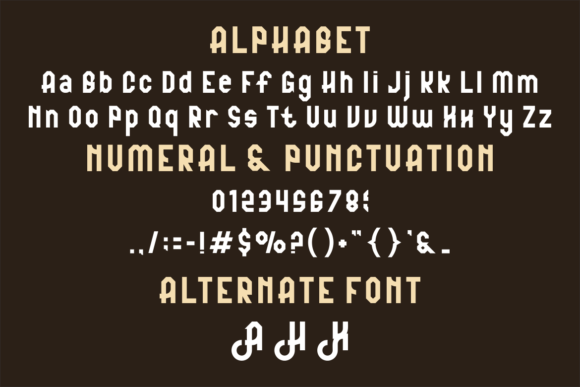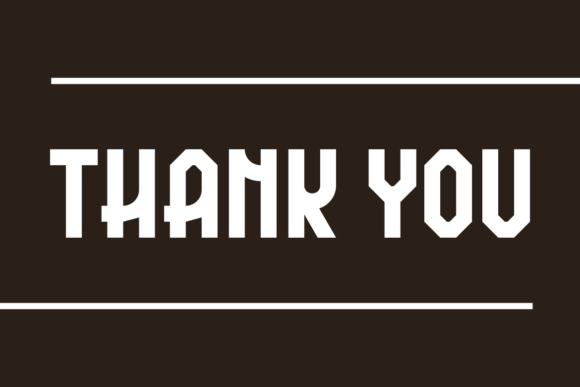
Introducing Archana Font: The Bold and Authentic Display Font for Your Branding Needs
In the world of typography, a font can make or break the visual identity of a brand. When it comes to creating a lasting impression, designers and crafters need a font that is not only stylish but also authentic and bold. This is where Archana Font comes in – a stunning display font that is perfect for any branding project. In this article, we’ll explore the features and benefits of Archana Font and why it’s a must-have for designers and crafters.
What is Archana Font?
Archana Font is a bold and authentic display font designed to make a statement. Its unique and stylish design makes it suitable for a wide range of applications, from logo creation to t-shirt printing, product packaging, and more. The font’s versatility and flexibility make it an excellent choice for designers and crafters who want to add a personal touch to their projects.
Key Features of Archana Font
- Bold and Authentic Design: Archana Font boasts a bold and authentic design that is sure to grab attention. Its unique style makes it stand out from other fonts, ensuring that your branding project looks professional and eye-catching.
- Versatility: Archana Font is suitable for a wide range of applications, including logo creation, t-shirt printing, product packaging, and more. Its versatility makes it an excellent choice for designers and crafters who work on various projects.
- High-Quality Design: Archana Font is designed with high-quality and precision, ensuring that it looks great in any context. Whether you’re using it for a logo, t-shirt printing, or product packaging, the font will always look professional and stylish.
Benefits of Using Archana Font
Using Archana Font for your branding project comes with several benefits. Here are a few:
- Stand Out from the Crowd: With Archana Font, you can create a unique and eye-catching design that sets you apart from your competitors. Its bold and authentic design ensures that your branding project looks professional and stylish.
- Enhance Your Brand’s Visual Identity: Archana Font can help enhance your brand’s visual identity by providing a consistent and professional look. Its high-quality design ensures that your branding project looks great in any context.
Who Can Use Archana Font?
Archana Font is perfect for designers and crafters who want to add a personal touch to their projects. Here are a few examples of who can use Archana Font:
- Graphic Designers: Graphic designers can use Archana Font for logo creation, branding projects, and other design applications.
- T-Shirt Designers: T-shirt designers can use Archana Font for creating stylish and eye-catching designs for their clients.
- Product Packers: Product packers can use Archana Font for creating labels, packaging, and other marketing materials.
- Crafters: Crafters can use Archana Font for creating personalized gifts, such as mugs, t-shirts, and other items.
In conclusion, Archana Font is a bold and authentic display font that is perfect for any branding project. Its unique and stylish design makes it suitable for a wide range of applications, from logo creation to t-shirt printing, product packaging, and more. With its ease of use, high-quality design, and versatility, Archana Font is a must-have for designers and crafters who want to add a personal touch to their projects.